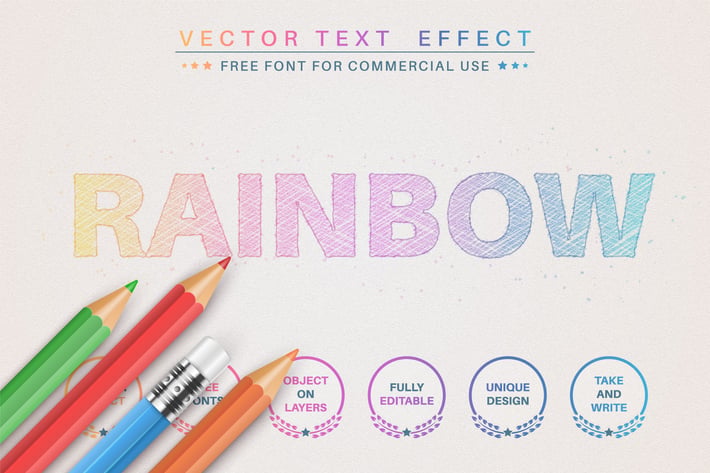
Pencil rainbow - editable text effect, font style
Hello! I'm happy to introduce my new text effect "Pencil unicorn". Just write your word and the effect will apply! Be as creative as you like to be in expressing yourself using this unique “Pencil unicorn”. Effect is perfect for any project that needs a unique handy touch whatever else your imagination leads you to!